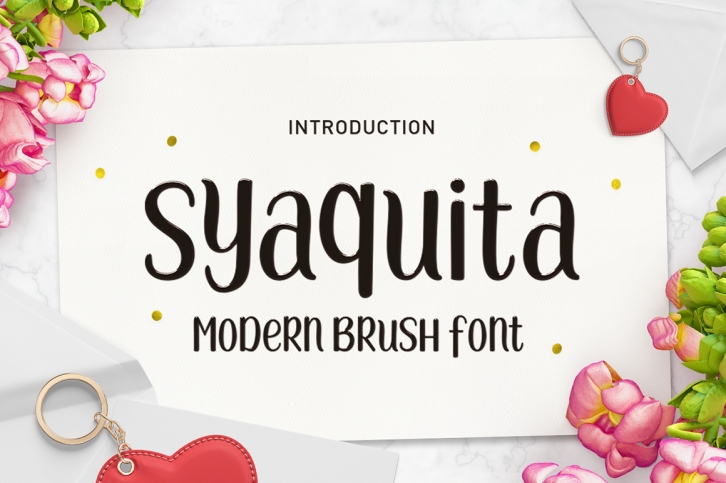
Syaquita is a trendy and unique font with an authentic style. It was designed by Areatype Studio and it's a great choice for creative people who need such a font. It was released on November 8, 2017 and the file size is 18.33 MB. Syaquita will add an organic vibe to any design idea!